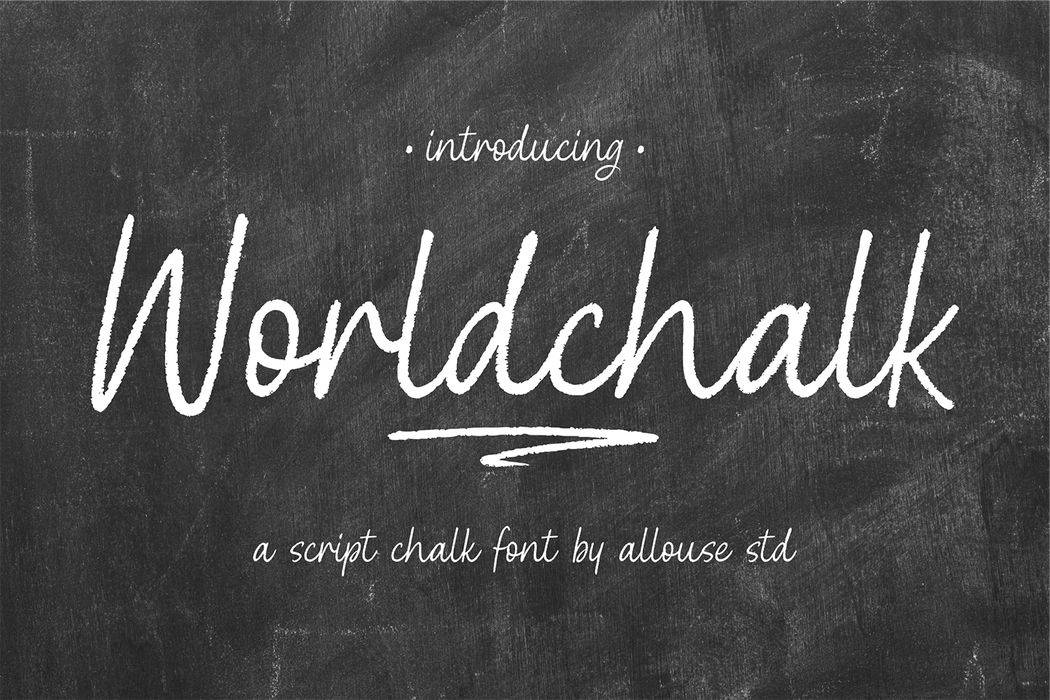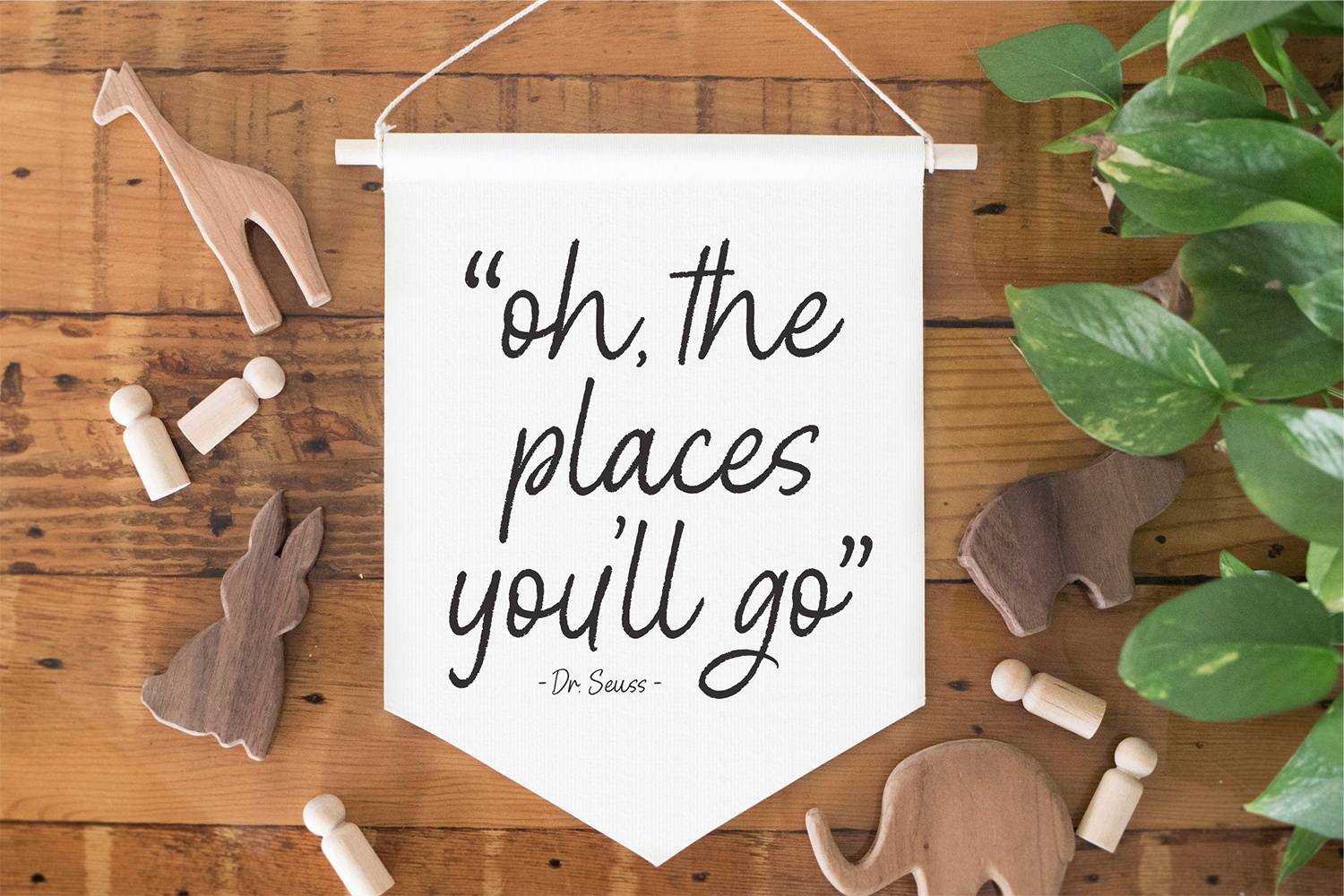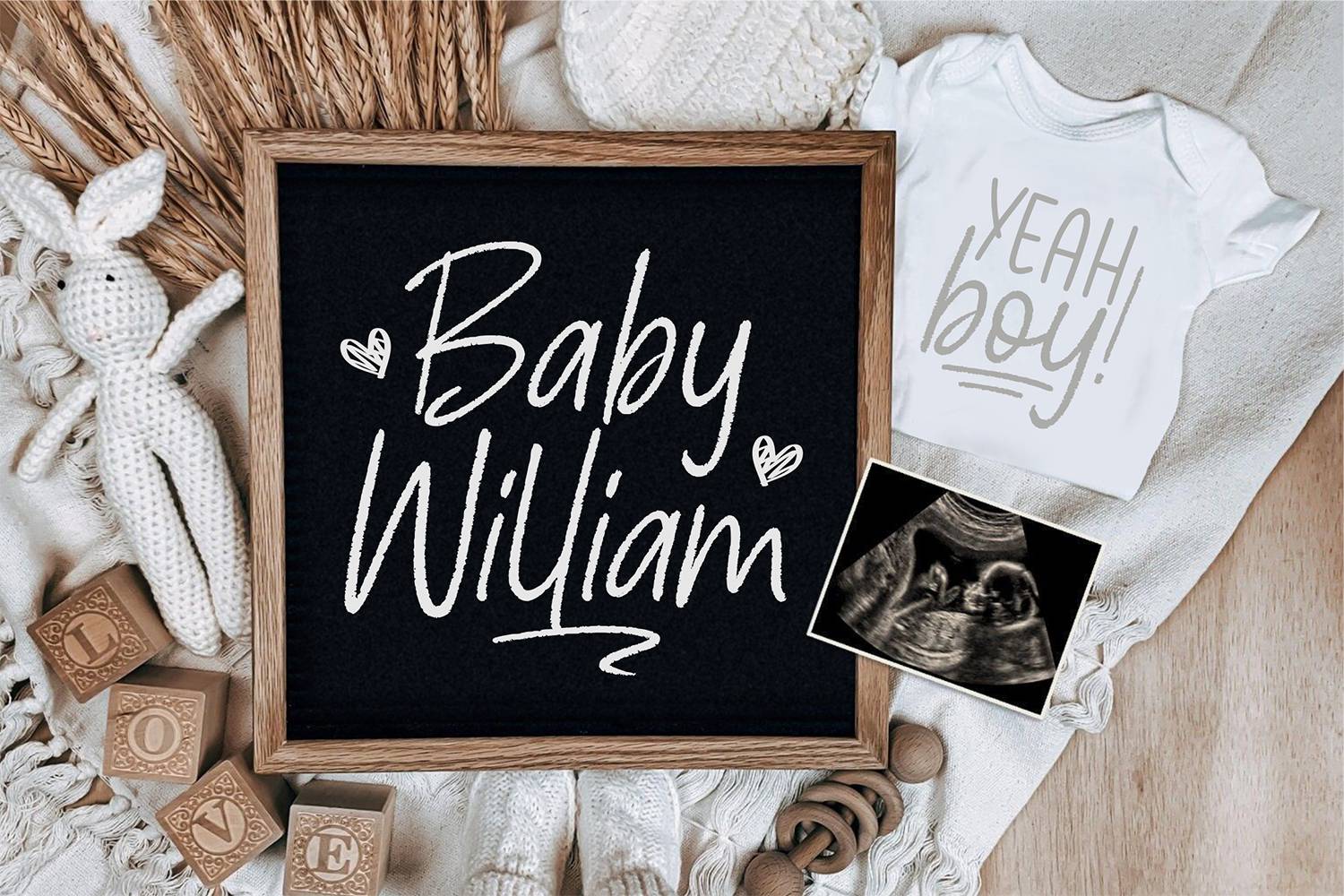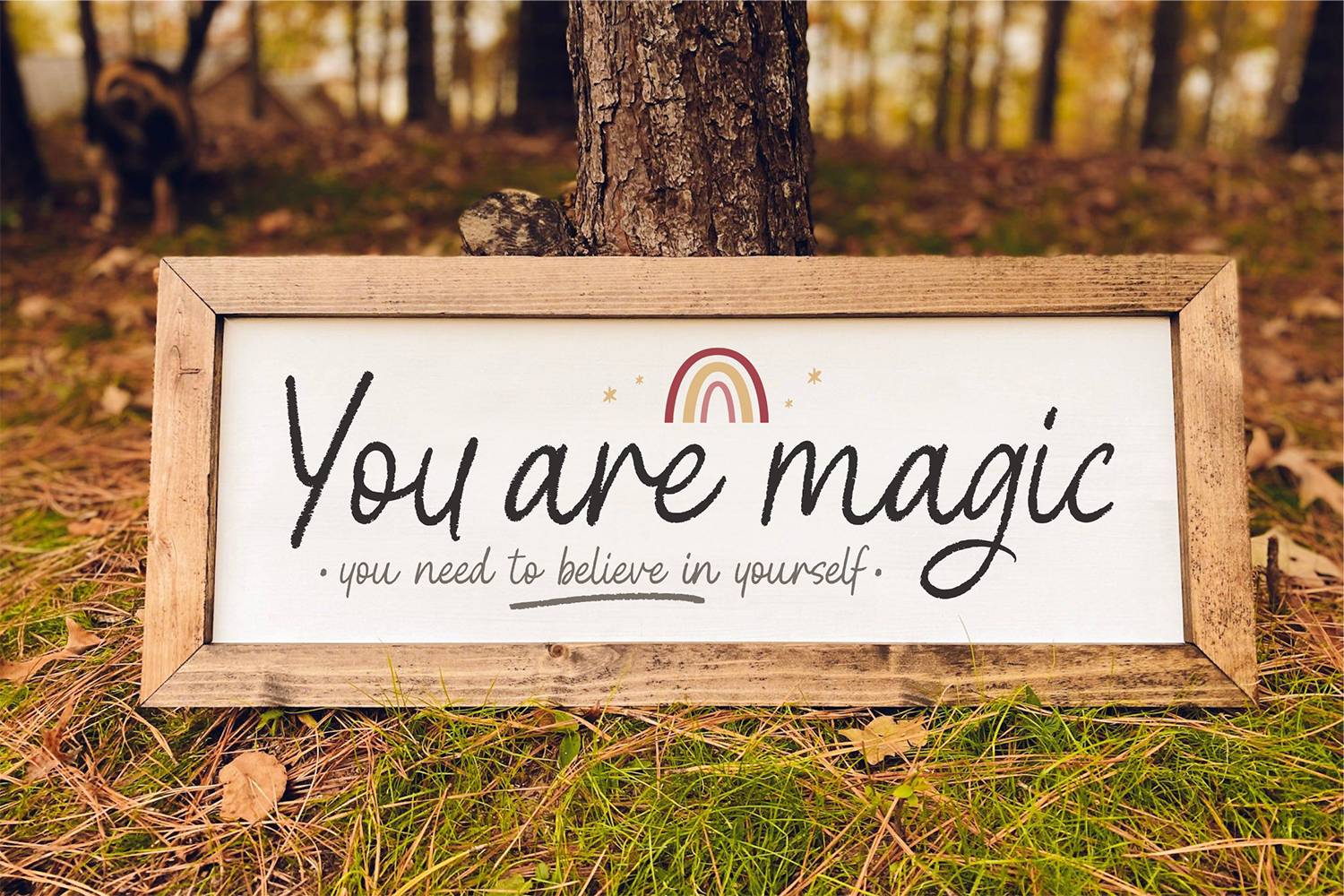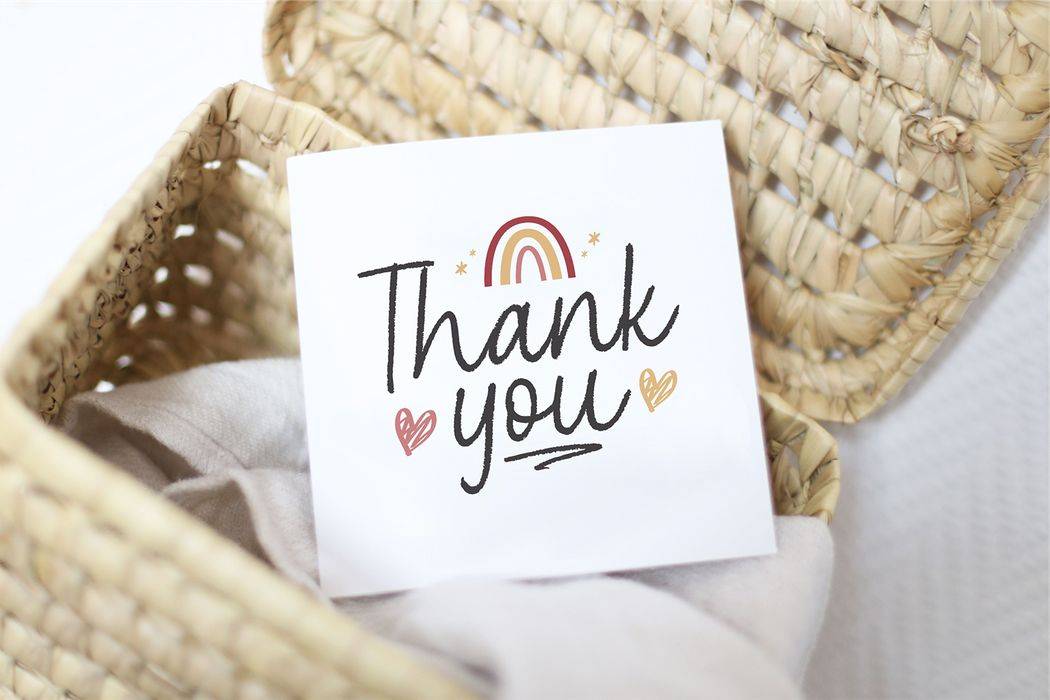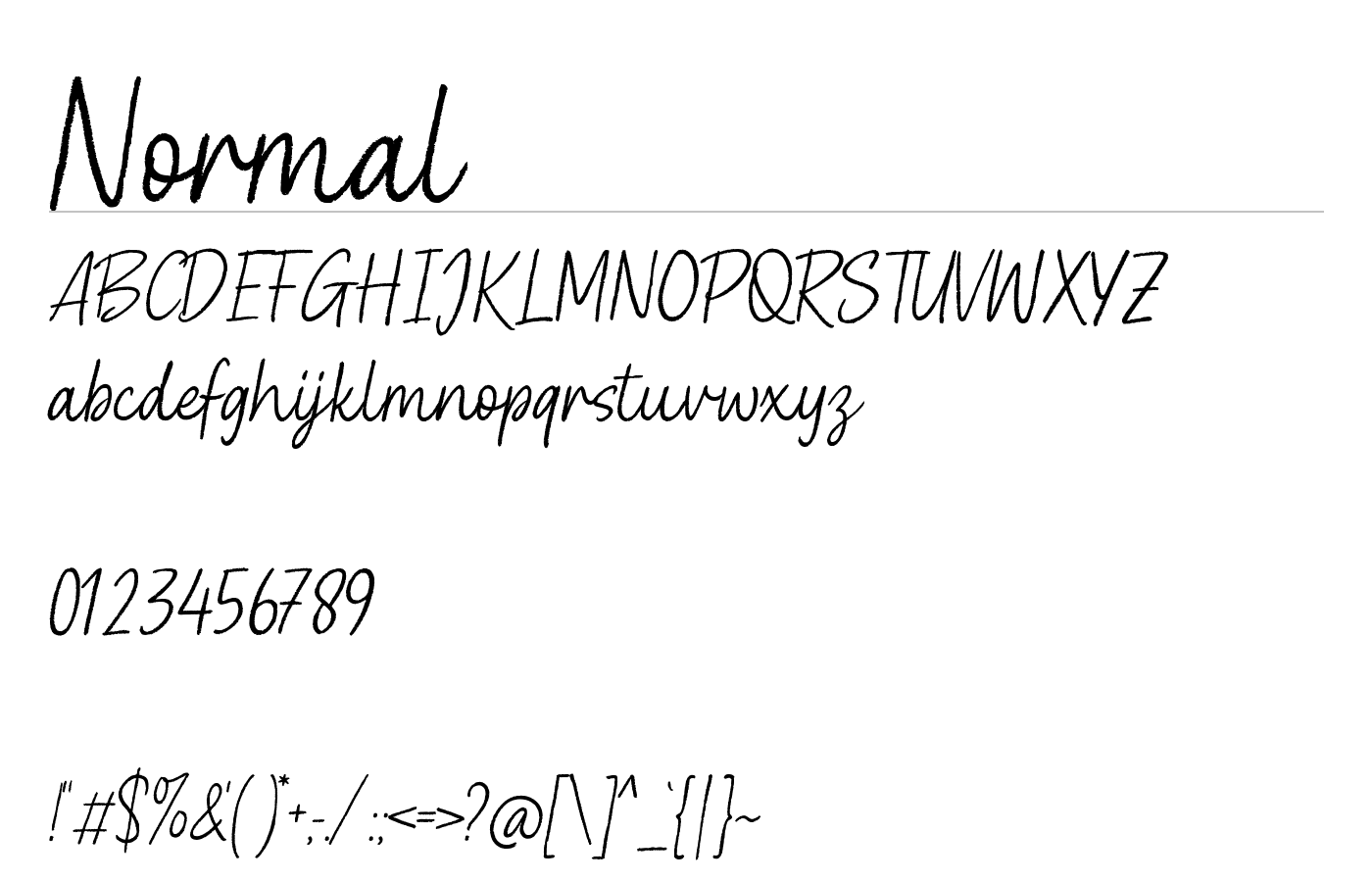
Worldchalk is a casual, handwritten script font with a light weight and narrow width, mimicking natural chalkboard writing. Its tall, slightly slanted characters and smooth, flowing curves give it an approachable, friendly feel ideal for playful, informal designs. This font works well for creative projects like classroom materials, casual branding, and artistic posters that seek a personal, handcrafted touch.
Worldchalk Font
About Worldchalk Font